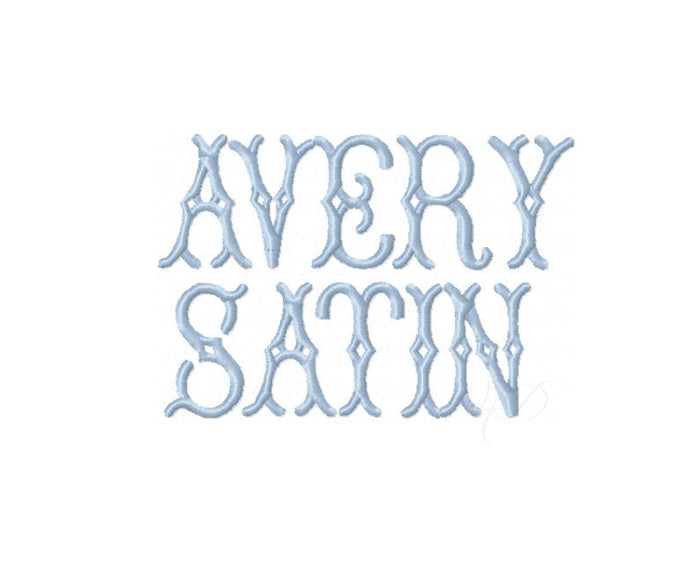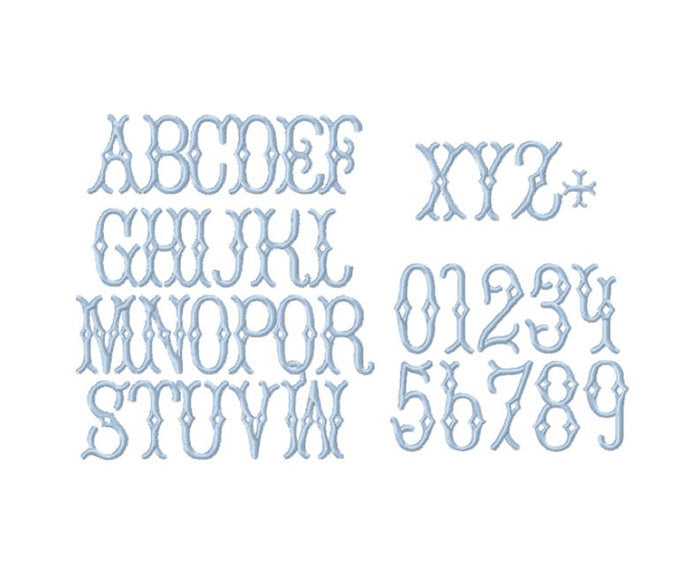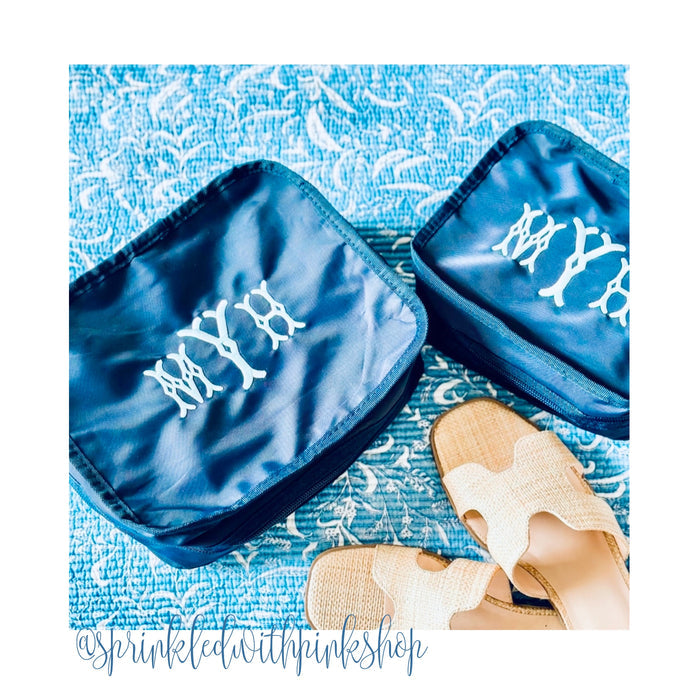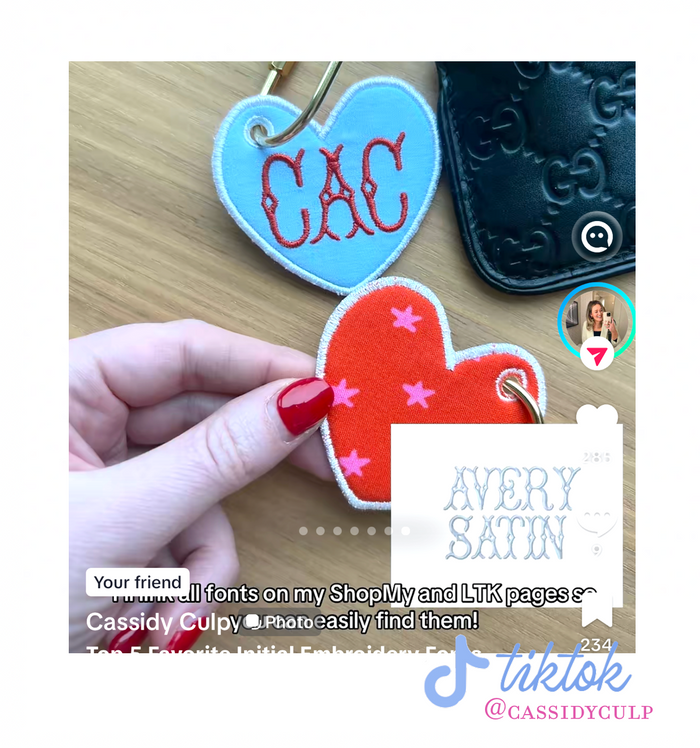
Avery Satin Fishtail Embroidery Font Package
The Avery Satin Fishtail Embroidery Font Package is perfect for crafters looking to add a touch of elegance to their projects. This package features uppercase letters, numbers 0-9, and a plus symbol (+) in satin stitch, all designed to fit perfectly within a 4x4 hoop. With 37 individual letters available in multiple sizes, you’ll have endless possibilities for customization.